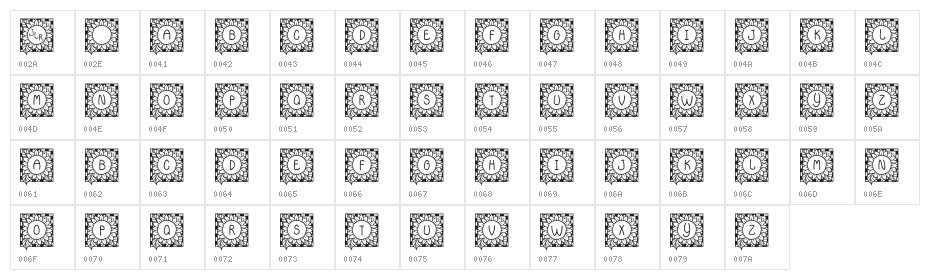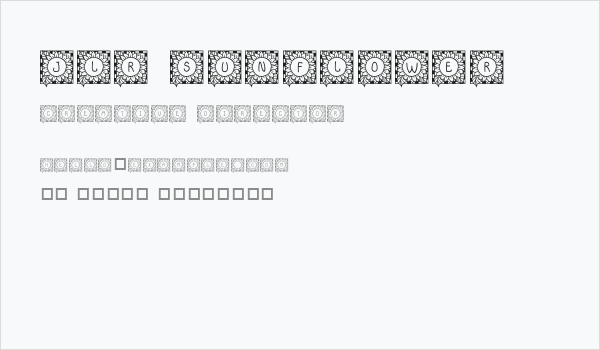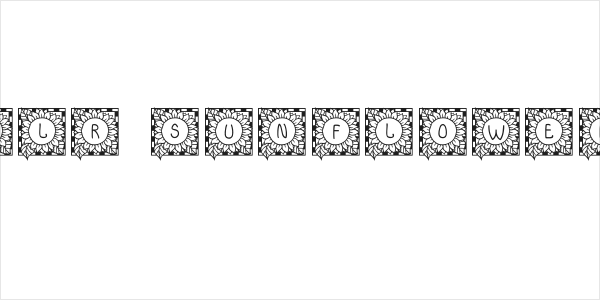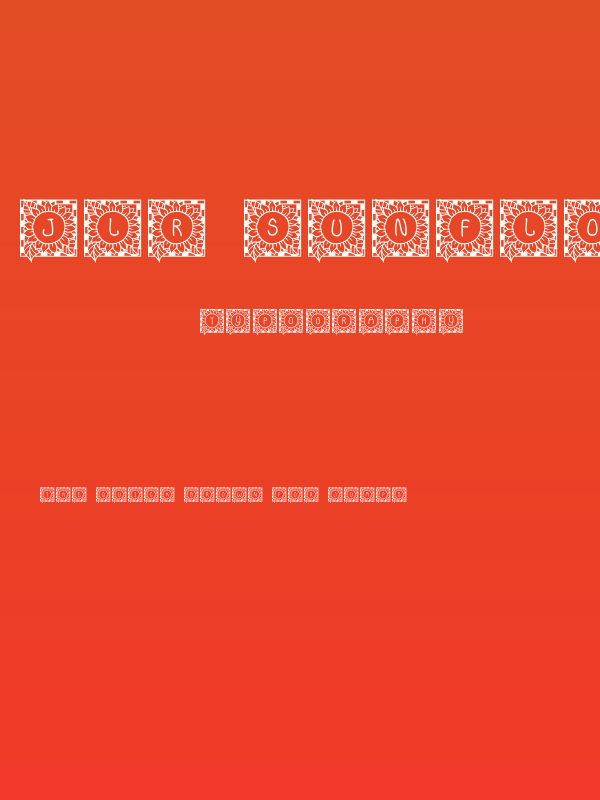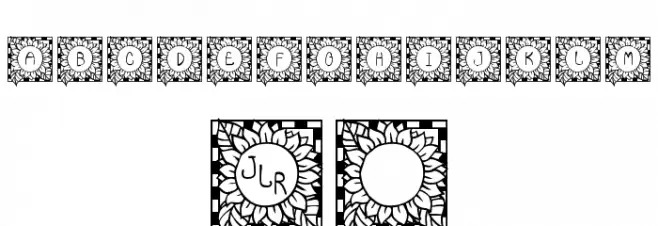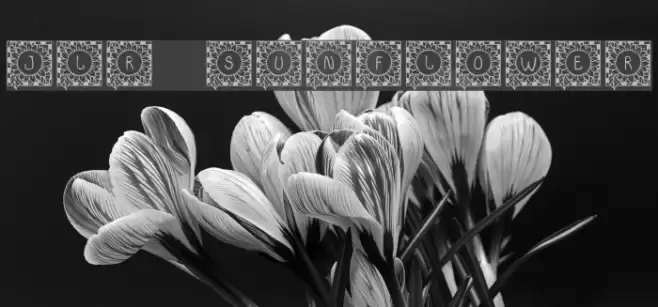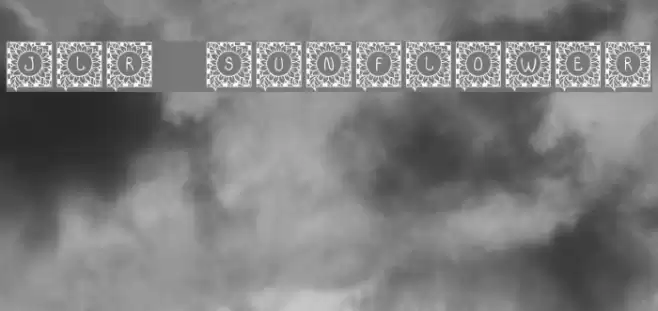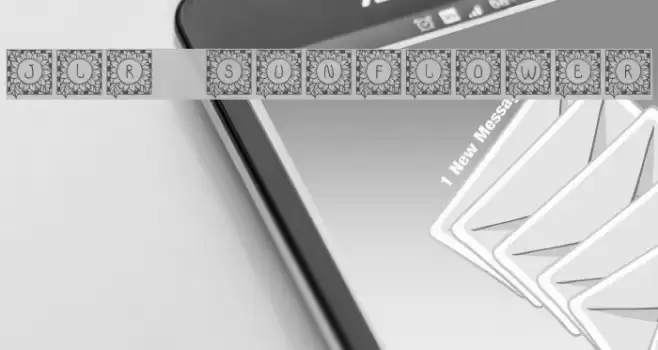
JLR Sunflower Font
JLR Sunflower Description
This decorative font features each letter encased within a sunflower motif, creating a unique and artistic appearance. The letters are bold and clear, set against a detailed floral background that adds a touch of elegance and nature-inspired beauty. The design is consistent across all characters, maintaining a cohesive look that is both eye-catching and sophisticated. This font is ideal for projects that require a touch of creativity and nature, such as invitations, greeting cards, or branding materials that aim to convey a sense of warmth and charm.
| Use Case | Headlines, Logos, Decorative text |
| Proposed Projects | Perfect for invitations, greeting cards, nature-themed branding, and decorative posters. |